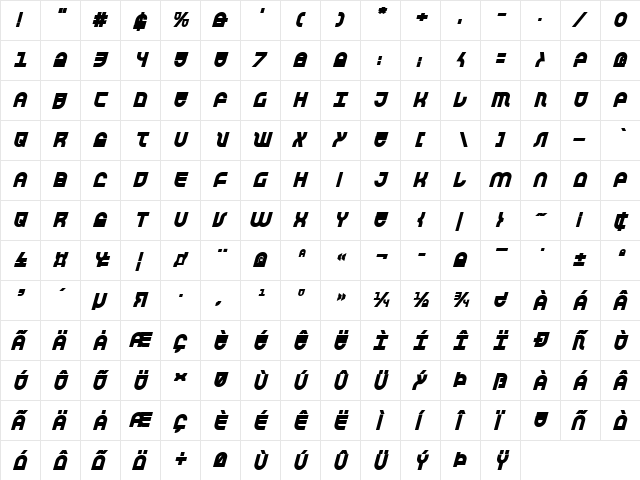
Trek Trooper Bold Italic Font Preview
Design Context for Trek Trooper Bold Italic Typeface
Trek Trooper Bold Italic is a composed and adaptable typeface that performs quietly and consistently across a wide range of design contexts. The dynamic lean of this cut emphasises speed and emphasis in any layout. The heavy weight commands attention and anchors typographic hierarchies.
Pro Tip: Try Trek Trooper Bold Italic for annotation and caption copy alongside an upright companion — the contrast in angle creates a dynamic but ordered typographic system.